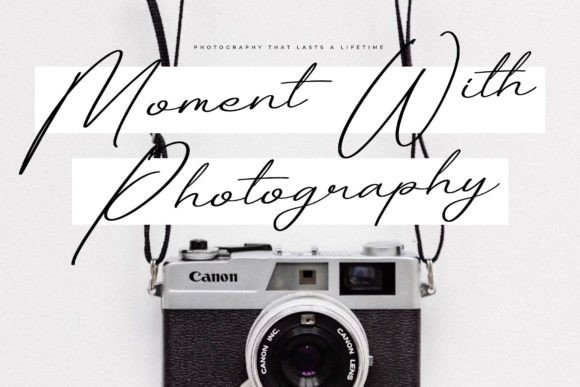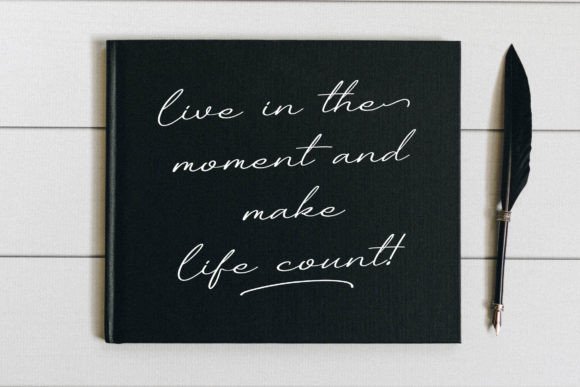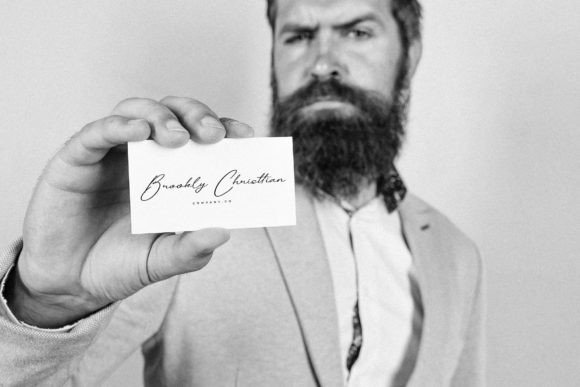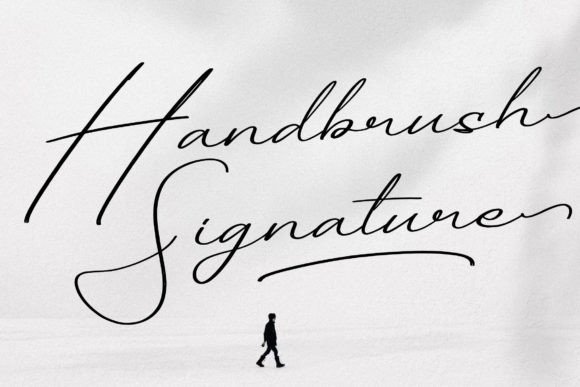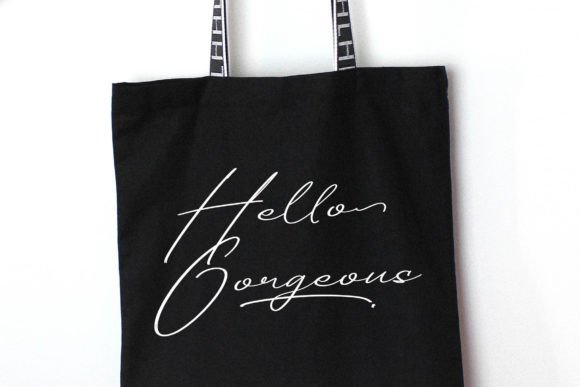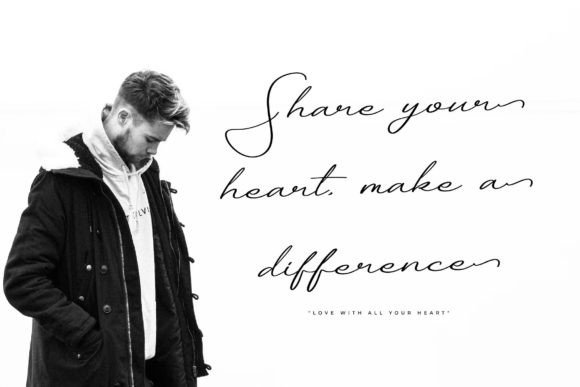
Discover the Magic of Hand-Brushed Script Fonts
Remember that moment when you’re working on a project and you just can’t find the right font to bring your vision to life? The perfect script font can make all the difference in elevating your design from good to great. That’s exactly what Glorytype Studio’s Antthony Hatfield – Handbrush Signature Font aims to do.
This beautiful script font is designed to add a touch of elegance and sophistication to any project, from logos and branding to homeware designs and product packaging. Its versatility makes it a valuable asset for designers, allowing them to create unique and memorable designs that stand out from the crowd. With the Antthony Hatfield Font, you can add a personal touch to your projects and make them truly special.
Antthony Hatfield Font Key Features
- Font Family: Antthony Hatfield
- Font Style: Script
- Resolution: Supports high-resolution displays, ideal for printing and digital use
- Unique Characteristics: Elegant, cursive script with a touch of whimsy and sophistication, perfect for titles, headings, and decorative text
Designer Review: Antthony Hatfield Font
Overall, I found the Antthony Hatfield Font to be a unique and captivating addition to any design project. Here are some of its standout features:
- ✨ Highly customizable: The font offers a wide range of customization options, allowing designers to tailor the look to their specific needs.
- ✨ Versatile: Whether you’re working on a modern, tech-savvy project or a more traditional, elegant design, the Antthony Hatfield Font is adaptable and easy to use.
- ✨ Distinctive style: The font’s bold, yet refined aesthetic makes it stand out in a crowded design landscape.
- ⚠️ Limited language support: The font may not support all languages or character sets, which could be a concern for international or multilingual projects.
- ⚠️ Potential for overuse: The Antthony Hatfield Font is quite bold and eye-catching, which may lead to overuse in certain contexts.
Overall, I think the Antthony Hatfield Font is a great choice for designers who want to add some flair and personality to their projects. With its high level of customization and versatility, it’s definitely worth considering. Just be mindful of its limitations and use it thoughtfully to get the most out of this unique font.
Tips for Getting the Most Out of Antthony Hatfield Font
To get the most out of Antthony Hatfield Font, try the following:
- Use the font in bold or italic to add emphasis to your text.
- Pair the font with other fonts to create a unique and interesting design.
- Experiment with different font sizes and styles to find the best fit for your project.
Antthony Hatfield Font is well-suited for:
- Designing creative and artistic projects.
- Creating invitations and other event materials.
- Designing logos and branding materials.
Alternatives to “Antthony Hatfield Font” for Designers
1. Alex Brush Font
A elegant, cursive script font that is perfect for creating a romantic or vintage feel in designs. It has a more refined and polished look compared to Antthony Hatfield Font, making it suitable for formal invitations, wedding designs, or luxury branding.
Comparison: While both fonts are script-based, Alex Brush Font is more refined and sophisticated, whereas Antthony Hatfield Font has a more rustic and handwritten feel.
A modern, elegant script font that is ideal for creating a sophisticated and professional look in designs. It has a more streamlined and cohesive feel compared to Antthony Hatfield Font, making it suitable for corporate branding, business cards, or editorial designs.
Comparison: While both fonts are elegant, Carolyna Pro Font has a more contemporary and polished look, whereas Antthony Hatfield Font has a more vintage and eclectic feel.